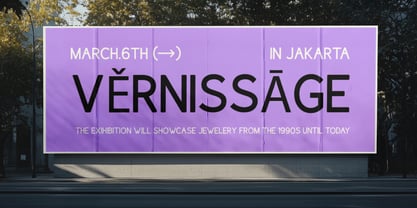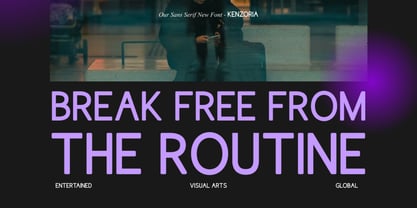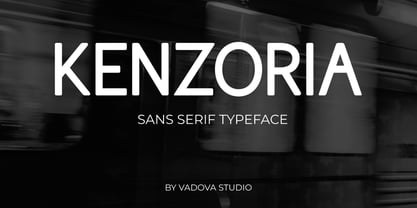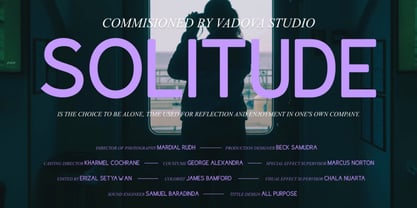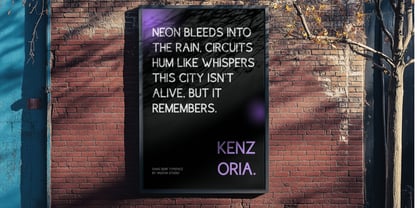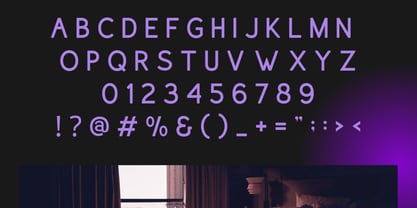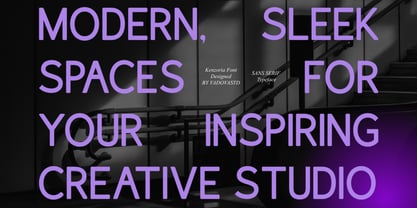
Kenzoria
by Vadova Std
Kenzoria is a sleek sans serif typeface designed with clean lines, subtle curves, and modern simplicity. Its minimalistic style makes it ideal for professional use, including branding, editorial layouts, web design, logos, and corporate identities. The font strikes a perfect balance between form and function ensuring high readability while maintaining visual appeal. Whether applied to print or digital media, Kenzoria brings a polished, contemporary look to your designs.